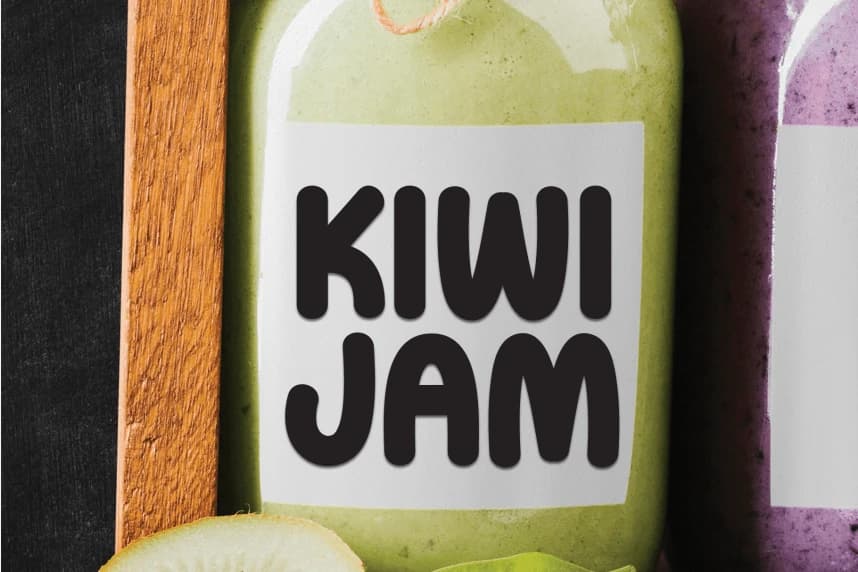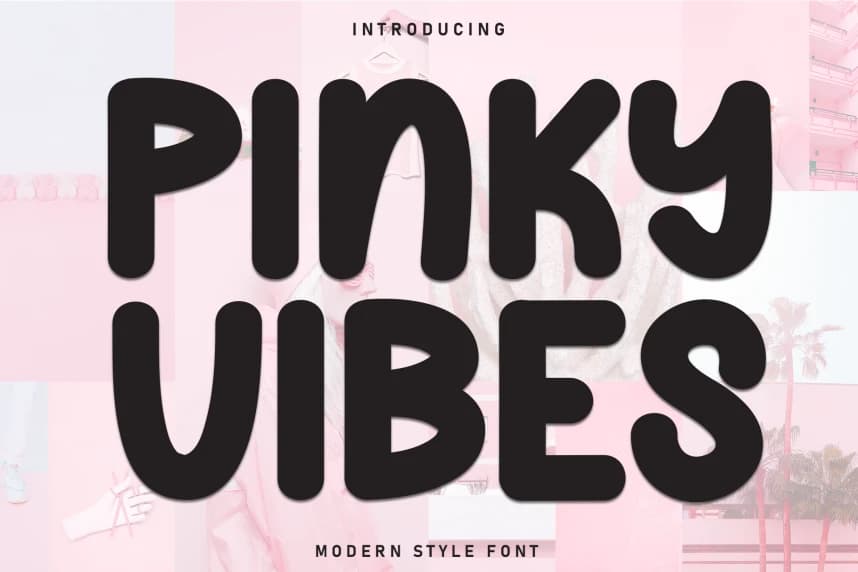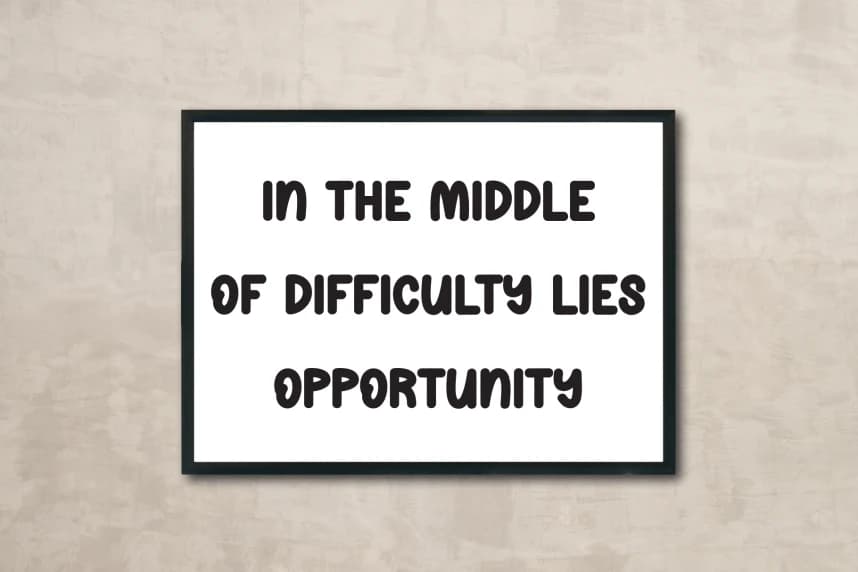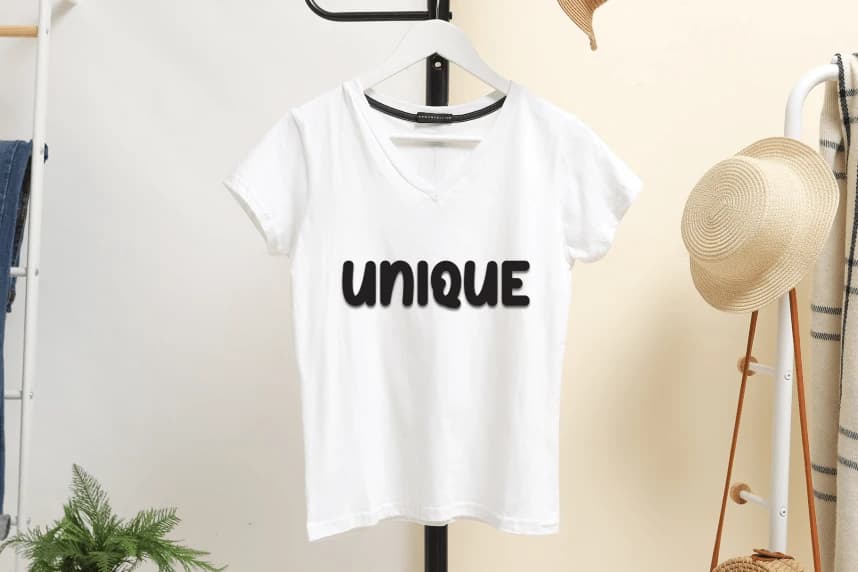
Pinky Vibes Script Font
Pinky Vibes Script Font is a sweet and friendly handwritten display font. Cute and fun, this font is ideal for writing wedding invitations, cards, or any
Pinky Vibes Script